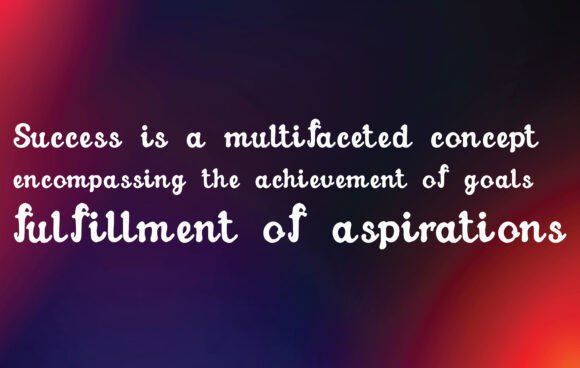
Grey Font: Elevate Your Creative Ideas with this Lovely Handwritten Font
Are you looking for a font that can take your creative ideas to the next level? Look no further than Grey Font, a beautiful handwritten font that is perfect for creating eye-catching logos, branding, and quotes. In this article, we’ll explore the features and benefits of Grey Font, and why it’s the best choice for your design needs.
What is Grey Font?
Grey Font is a lovely and beautiful handwritten font that is designed to add a touch of elegance and sophistication to your designs. With its smooth and flowing lines, Grey Font is perfect for creating a wide range of designs, from logos and branding to quotes and social media graphics.
One of the standout features of Grey Font is its versatility. It can be used for both personal and commercial projects, and is suitable for a wide range of industries and applications. Whether you’re a designer, artist, or simply someone who loves to create, Grey Font is a great choice for anyone looking to add a touch of personality to their designs.
Benefits of Using Grey Font
So why choose Grey Font over other fonts? Here are just a few benefits of using this lovely handwritten font:
- Elegant and sophisticated: Grey Font has a smooth and flowing design that adds a touch of elegance and sophistication to any project.
- Versatile: Grey Font can be used for a wide range of projects, from logos and branding to quotes and social media graphics.
- Easy to read: Despite its elegant design, Grey Font is easy to read and understand, making it perfect for use in body text and other applications where readability is key.
- Unique: Grey Font has a unique and distinctive design that sets it apart from other fonts, making it perfect for designers and artists who want to stand out from the crowd.
Uses for Grey Font
So what can you use Grey Font for? The possibilities are endless, but here are a few ideas to get you started:
- Logos and branding: Grey Font is perfect for creating eye-catching logos and branding materials that will help your business stand out from the crowd.
- Quotes and social media graphics: Grey Font is a great choice for creating quotes and social media graphics that will grab attention and inspire your audience.
- Invitations and events: Grey Font is perfect for creating invitations and event materials that will add a touch of elegance and sophistication to your event.
- Packaging and product design: Grey Font can be used for packaging and product design to add a touch of personality and style to your products.
Tips for Using Grey Font
Here are a few tips for getting the most out of Grey Font:
- Use it sparingly: While Grey Font is a beautiful font, it can be overwhelming if used too much. Use it sparingly to add a touch of elegance and sophistication to your designs.
- Experiment with different colors: Grey Font looks great in a wide range of colors, so don’t be afraid to experiment and find the perfect color for your design.
- Pair it with other fonts: Grey Font can be paired with other fonts to create a unique and interesting design. Try pairing it with a bold font for a striking contrast.
In conclusion, Grey Font is a lovely and beautiful handwritten font that is perfect for taking your creative ideas to the next level. With its elegant and sophisticated design, versatility, and ease of use, Grey Font is a great choice for designers, artists, and anyone who loves to create. Whether you’re looking to create eye-catching logos, branding, and quotes, or simply want to add a touch of personality to your designs, Grey Font is the perfect choice.